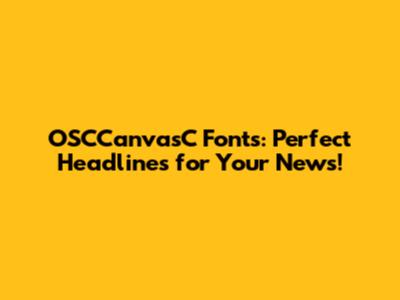
OSCCanvasC Fonts: Perfect Headlines For Your News!
Hey everyone! Are you looking for the perfect font to grab attention for your news headlines? Look no further! In this article, we're diving deep into OSCCanvasC fonts and why they might just be the secret weapon you need to make your news stand out from the crowd. We'll cover everything from what makes these fonts special to how you can use them effectively to draw readers in. Let's get started!
What Makes OSCCanvasC Fonts Stand Out?
So, what's the big deal about OSCCanvasC fonts anyway? Well, a few things make them particularly well-suited for news headlines. First and foremost, they're designed with readability in mind. In the fast-paced world of online news, you've got mere seconds to capture someone's attention. If your headline is difficult to read, people are just going to scroll right on by. OSCCanvasC fonts typically feature clean, crisp lines and well-defined letterforms, ensuring that your message gets across loud and clear. This is super important because you want people to understand the gist of your news right away.
Another key factor is their versatility. The OSCCanvasC font family often includes a range of weights and styles, from bold and impactful to lighter and more refined. This gives you the flexibility to choose the perfect font for different types of news stories. For example, a hard-hitting investigative piece might call for a bold, attention-grabbing headline, while a more lighthearted human-interest story could benefit from a softer, more approachable font. Having options is crucial for maintaining visual interest and matching the tone of your content. Think about it like choosing the right outfit for an occasion; you wouldn't wear a tuxedo to the beach, would you?
Furthermore, OSCCanvasC fonts often possess a unique personality that can help your news outlet establish a distinct brand identity. In a sea of generic-looking websites and publications, having a recognizable font can make all the difference. It's like having a signature scent; people will start to associate that particular font with your brand, building recognition and trust over time. A strong brand identity helps you stand out and become memorable, which is a huge advantage in the competitive news landscape. The right font can communicate professionalism, trustworthiness, and even a sense of innovation, all without saying a word.
In addition to their aesthetic qualities, OSCCanvasC fonts are often designed with technical considerations in mind. They're typically optimized for web use, meaning they'll render clearly and quickly on a variety of devices and screen sizes. Nobody wants to wait for a headline to load, especially on a mobile device. Optimization ensures a smooth user experience, which is critical for keeping readers engaged. Moreover, these fonts often include a wide range of characters and symbols, allowing you to create headlines in multiple languages or incorporate special elements for visual emphasis. This kind of attention to detail can really elevate the overall look and feel of your news site.
How to Effectively Use OSCCanvasC Fonts for Headlines
Okay, so you're convinced that OSCCanvasC fonts are worth considering. But how do you actually use them effectively to create killer headlines? Here are a few tips to keep in mind:
Consider Your Audience: Who are you trying to reach with your news? A font that appeals to a younger, more digitally savvy audience might not resonate with an older, more traditional readership. Think about the demographics of your target audience and choose a font that aligns with their preferences. Knowing your audience is half the battle; you want to speak their language, visually and otherwise. A font that feels too modern might alienate older readers, while a font that feels too outdated might bore younger ones. It’s all about finding that sweet spot that appeals to the people you're trying to reach.
Think About Hierarchy: Headlines aren't the only text on your page. How does the OSCCanvasC font you've chosen for your headlines work with the body text and other design elements? You want to create a clear visual hierarchy that guides the reader's eye and makes it easy to scan the page. A good rule of thumb is to use a bolder, more attention-grabbing font for headlines and a simpler, more readable font for body text. Contrast is key; you want your headlines to stand out without clashing with the rest of the design. Think of it like a spotlight shining on the most important information.
Pay Attention to Kerning and Leading: Kerning refers to the spacing between individual letters, while leading refers to the spacing between lines of text. These subtle details can have a big impact on readability. Make sure the kerning and leading are adjusted properly so that your headlines are easy to read and visually appealing. Too much or too little spacing can make the text look cluttered or disjointed. It's like tuning an instrument; you want everything to be just right so that it sounds harmonious. A well-kerned and well-leaded headline looks professional and polished, conveying a sense of attention to detail.
Don't Be Afraid to Experiment: The best way to find the perfect OSCCanvasC font for your news headlines is to try out different options and see what works best. Don't be afraid to mix and match different fonts and styles until you find a combination that you love. Experimentation is key to finding your unique voice. Try pairing different weights of the same font or combining OSCCanvasC fonts with other complementary typefaces. You might be surprised at what you discover. It's like trying new recipes; you never know what delicious combinations you'll stumble upon.
Consider Mobile Optimization: With so many people accessing news on their smartphones and tablets, it's essential to make sure your headlines look great on mobile devices. Choose an OSCCanvasC font that's legible even on small screens and optimize your website for mobile viewing. A responsive design ensures that your headlines will scale properly and maintain their readability regardless of the device being used. Nobody wants to squint to read a headline on their phone. Mobile optimization is no longer optional; it's a necessity for reaching a wider audience.
Conclusion: Elevate Your News with OSCCanvasC Fonts
In conclusion, OSCCanvasC fonts can be a powerful tool for enhancing the visual appeal and readability of your news headlines. By choosing the right font and using it effectively, you can capture your audience's attention, establish a strong brand identity, and ultimately drive more traffic to your news site. So, go ahead and explore the world of OSCCanvasC fonts – your headlines (and your readers) will thank you for it! Remember to consider your audience, think about hierarchy, pay attention to the details, and don't be afraid to experiment. With a little bit of creativity and effort, you can create headlines that are both visually stunning and highly effective. Good luck, guys, and happy headlining!